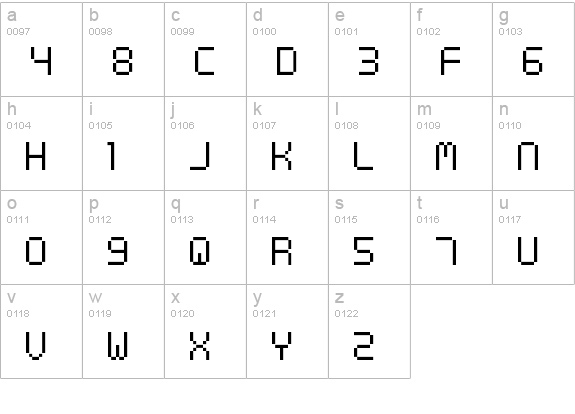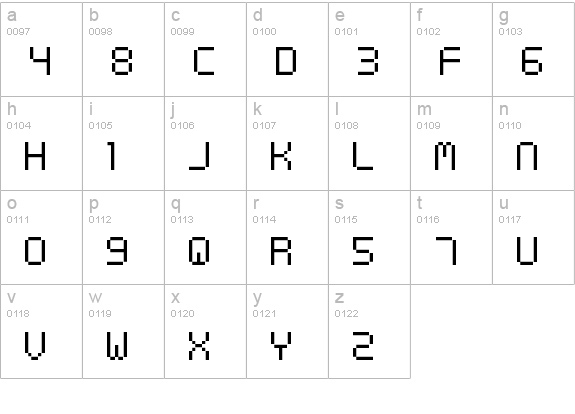
Digital cognitive Font Details
Introducing the Digital Cognitive Font, a visually striking and innovative typeface that pushes the boundaries of modern design. This font is the perfect blend of futuristic aesthetics and cognitive appeal, making it ideal for digital branding, technological interfaces, and cutting-edge graphic design projects. Designed with meticulous attention to detail, Digital Cognitive Font boasts clean lines, sharp angles, and intricate geometric shapes that create a sense of order and precision. Its unique character set is carefully crafted to enhance legibility, ensuring that your message is conveyed with utmost clarity and impact. But what truly sets Digital Cognitive Font apart is its versatility and adaptability. Whether you're working on a sleek website design, a captivating user interface, or an attention-grabbing advertisement, this font seamlessly integrates into any project, adding a touch of sophistication and modernity. And here's the best part – Digital Cognitive Font is available for free! That's right, you can now download this remarkable typeface without spending a dime. Simply visit FontsMarket.com, a trusted source for high-quality fonts, and unlock the full potential of Digital Cognitive Font for your creative endeavors. With its sleek and futuristic design, impeccable legibility, and now, its affordability, Digital Cognitive Font is a game-changer in the world of typography. Don't miss out on this incredible opportunity to elevate your designs and captivate your audience. Download Digital Cognitive Font today and discover the limitless possibilities it holds for your next project.